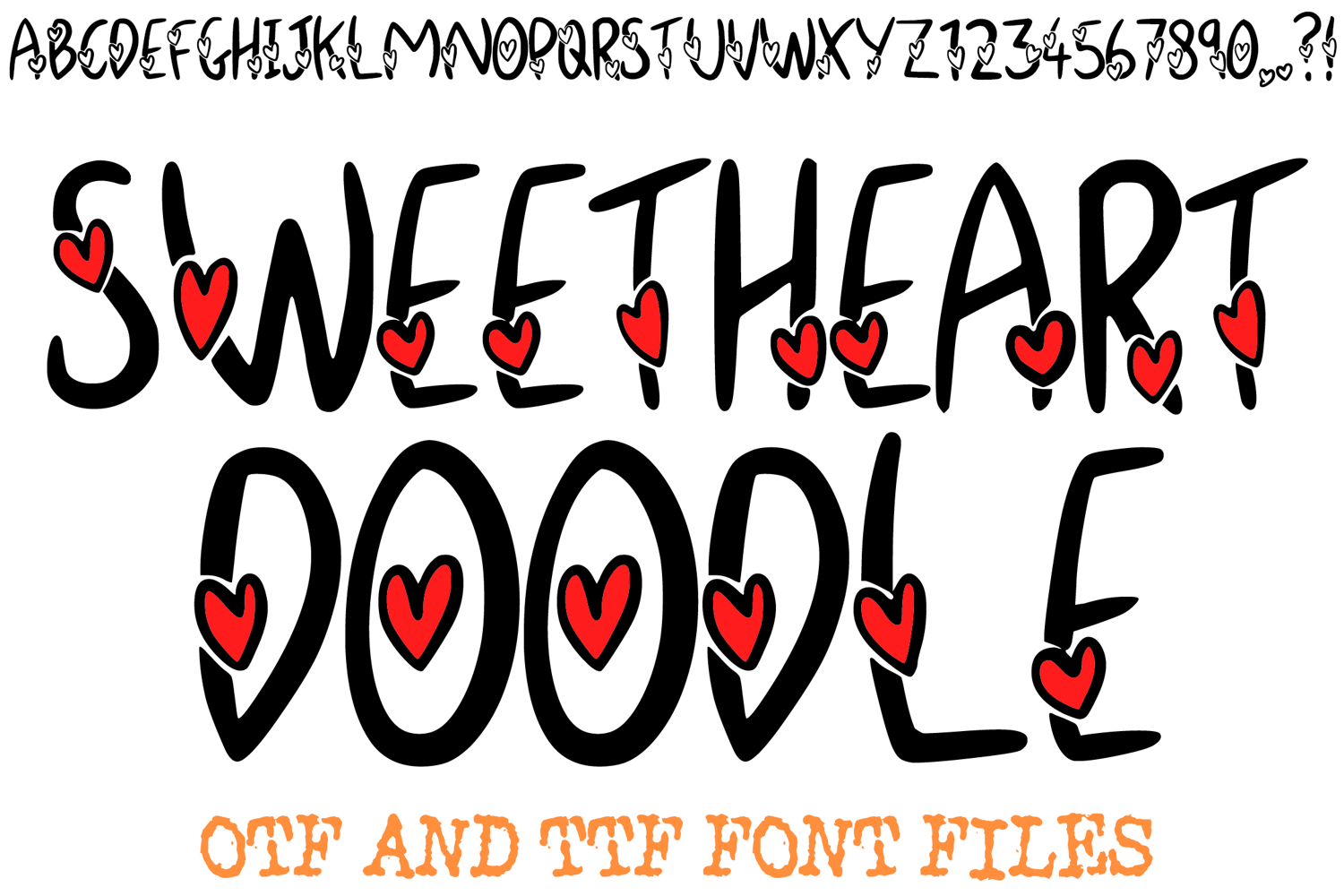
Sweetheart Doodle Cute Valentines Love Font Heart Typeface
Add a touch of whimsical romance to your designs with Sweetheart Doodle Font, a charming handmade typeface where every letter is a labor of love! This unique display font features a clean, hand-drawn sans-serif base with a sweet twist: each character has a delicate heart "hugging" or attached to the side of its strokes.
The playful, doodled aesthetic makes it feel like a note scribbled in the margins of a diary or a heartfelt message on a Valentine’s card. Despite the decorative heart details, the font remains highly legible and neat, making it a versatile choice for both digital and print projects.
Ideal For:
Valentine’s Day Crafts: Perfect for DIY cards, romantic gift tags, and "Be Mine" stickers.
Wedding & Engagement Stationery: Use it for "Save the Date" cards, bridal shower invitations, and place cards.
Teacher & Classroom Resources: Great for holiday bulletin boards, student reward sheets, and classroom decor.
- Digital Planning: Add a sweet, organized touch to your digital planners, journals, and social media quotes.